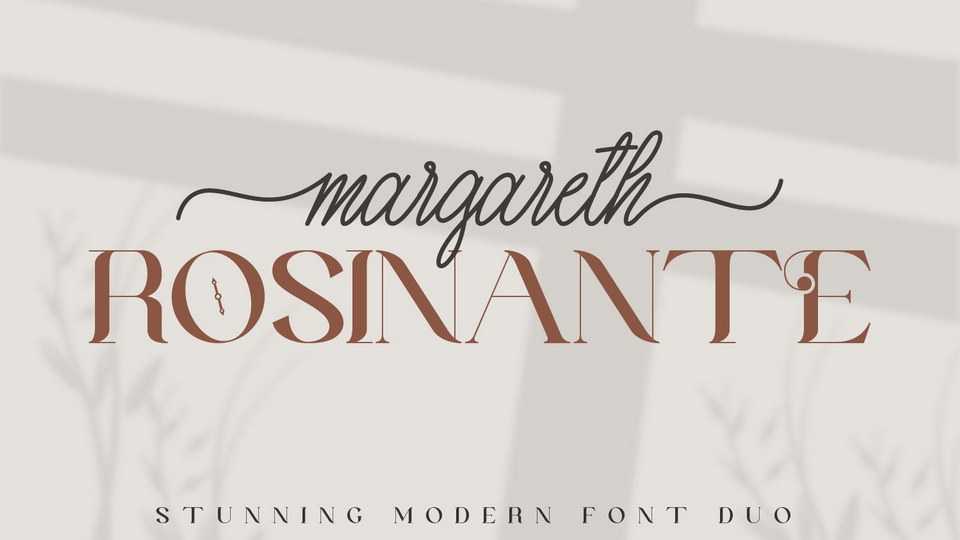
Download Margareth Rosinante typeface, a modern decorative serif and stylish script font that suits with any design. Margareth Rosinante is designed for an epic comparison between serif and script styles.
Designer: Creative17studio